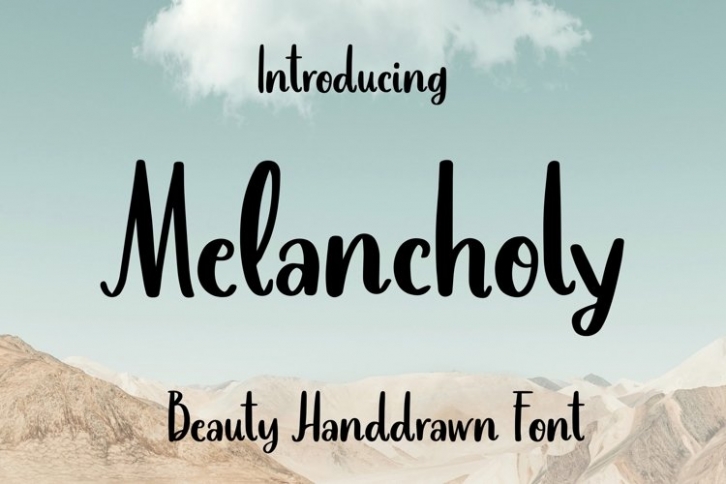
Melancholy is a trendy and unique font with an authentic style. It was designed by plusstore and it's a great choice for creative people who need such a font. It was released on March 5, 2022 and the file size is 12.15 MB. Melancholy will add an organic vibe to any design idea!